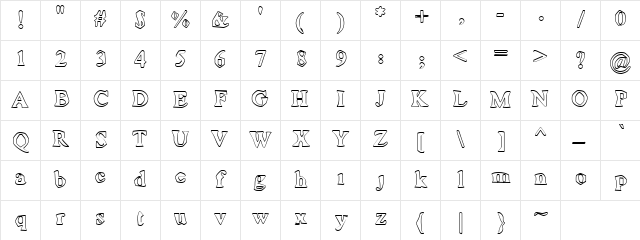
Mope Outline Regular
Design Context for Mope Outline Typeface
Mope Outline brings ornamental detail and strong personality to headlines and identities, where visual impact matters more than quiet functionality.
Font Pairing: Pair with a clean neutral sans-serif for body copy to let Mope Outline's character lead without overwhelming the composition.
Pro Tip: Treat Mope Outline as the centrepiece of your typographic hierarchy. One strong heading set in a decorative face can carry an entire layout.